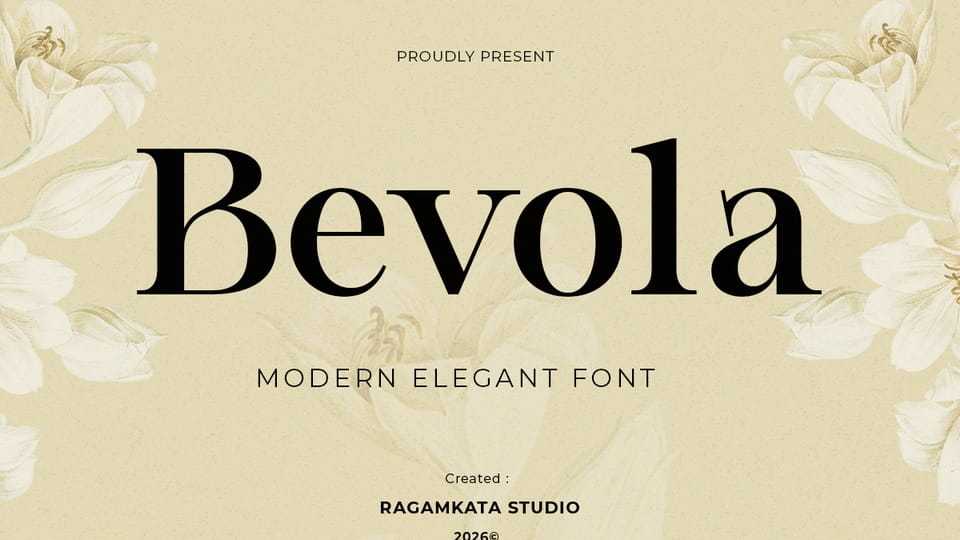
Download Bevola font, a modern elegant serif typeface designed to bring timeless beauty and refined sophistication to contemporary design, with its graceful curves, balanced proportions, and stylish contrast.